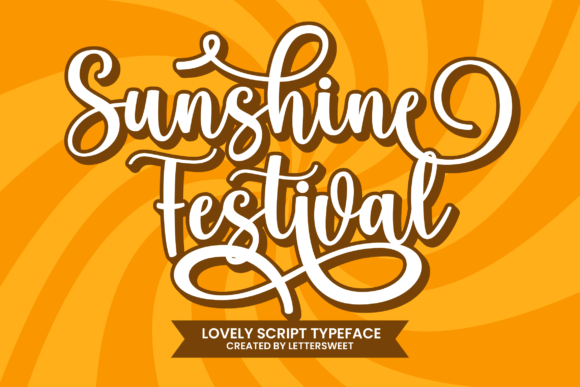
Sunshine Festival Font: The Perfect Choice for Romantic and Whimsical Designs
The Sunshine Festival font is a beautiful and romantic script font that has gained popularity among designers and crafters alike. Its elegant and flowing lines make it perfect for adding a touch of whimsy and sophistication to various design projects. In this article, we’ll explore the features and benefits of the Sunshine Festival font, and how it can elevate your designs to the next level.
What is Sunshine Festival Font?
Sunshine Festival is a stunning script font that boasts a romantic and feminine feel. Its intricate and curved lines, along with its beautiful swashes and glyphs, make it an ideal choice for designs that require a personal touch. This font is perfect for wedding invitations, thank you cards, quotes, greeting cards, logos, business cards, and any other design that needs a lovely handwritten touch.
Key Features of Sunshine Festival Font
The Sunshine Festival font comes with several key features that make it a versatile and practical choice for designers. Some of its notable features include:
- Beautiful Swashes and Glyphs: The font comes with a range of beautiful swashes and glyphs that can be used to add a touch of elegance and sophistication to your designs.
- Handwritten Touch: The Sunshine Festival font has a lovely handwritten touch that makes it perfect for designs that require a personal and whimsical feel.
Benefits of Using Sunshine Festival Font
The Sunshine Festival font offers several benefits to designers and crafters. Some of the advantages of using this font include:
- Elegant and Sophisticated: The Sunshine Festival font adds an elegant and sophisticated touch to any design project. Its flowing lines and beautiful swashes make it perfect for high-end designs.
- Versatile: The font is versatile and can be used for a range of design projects, from wedding invitations to business cards.
Best Uses for Sunshine Festival Font
The Sunshine Festival font is perfect for a range of design projects, including:
- Wedding Invitations: The font’s romantic and elegant feel makes it perfect for wedding invitations and other wedding-related designs.
- Thank You Cards: The Sunshine Festival font is ideal for creating beautiful and heartfelt thank you cards.
- Quotes and Greeting Cards: The font’s flowing lines and beautiful swashes make it perfect for quotes and greeting cards.
- Logos and Business Cards: The Sunshine Festival font can be used to create elegant and sophisticated logos and business cards.
Tips for Using Sunshine Festival Font
Here are some tips for using the Sunshine Festival font:
- Experiment with Different Sizes: The Sunshine Festival font looks great in different sizes. Experiment with different sizes to find the one that works best for your design.
- Pair with Other Fonts: The font can be paired with other fonts to create a unique and interesting design.
- Use Swashes and Glyphs: The Sunshine Festival font comes with a range of beautiful swashes and glyphs. Use them to add a touch of elegance and sophistication to your design.
The Sunshine Festival font is a beautiful and romantic script font that is perfect for adding a touch of whimsy and sophistication to various design projects. Its elegant and flowing lines, along with its beautiful swashes and glyphs, make it an ideal choice for designers and crafters alike. With its PUA encoding, beautiful swashes and glyphs, and lovely handwritten touch, this font is sure to elevate your designs to the next level.